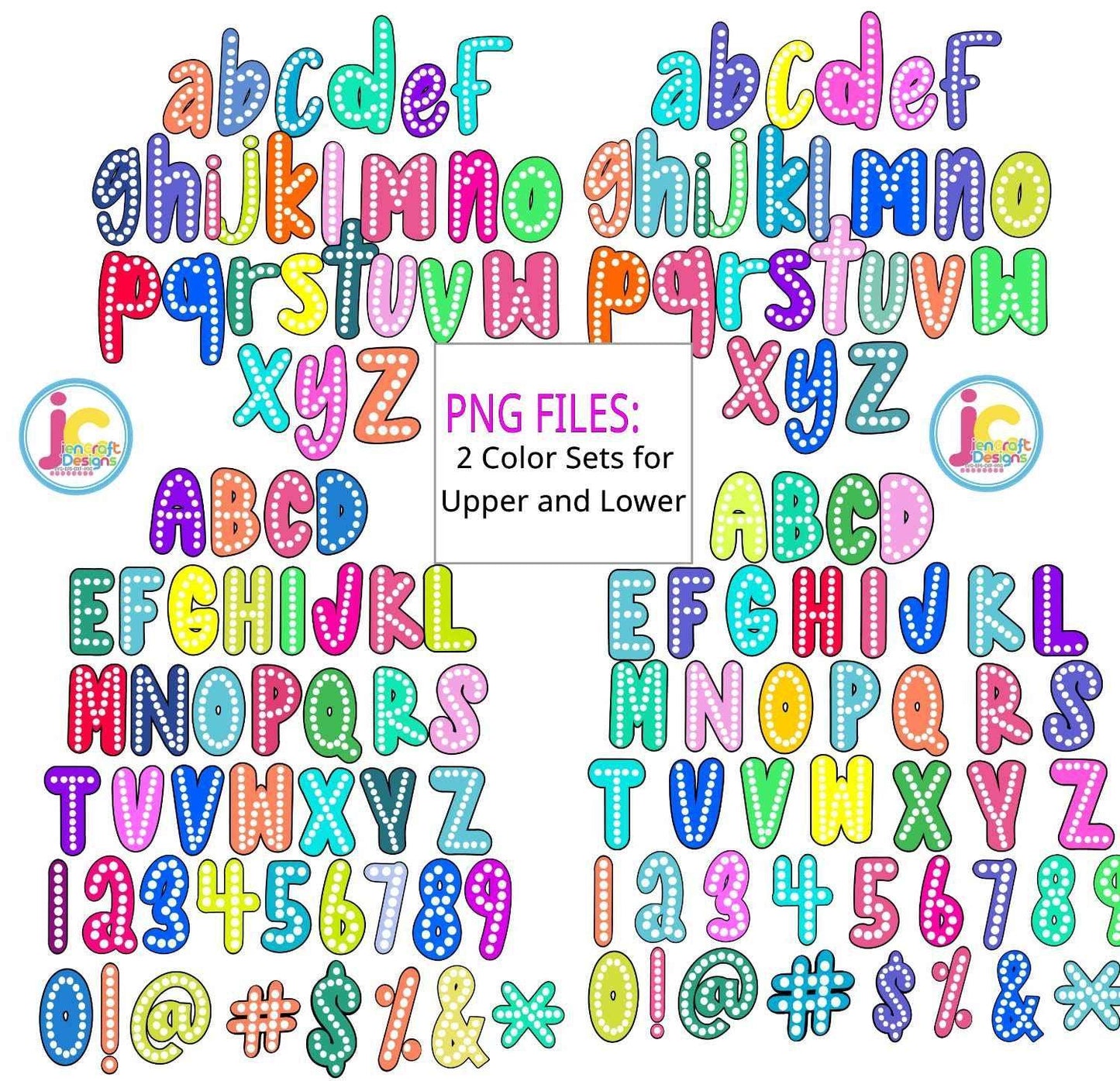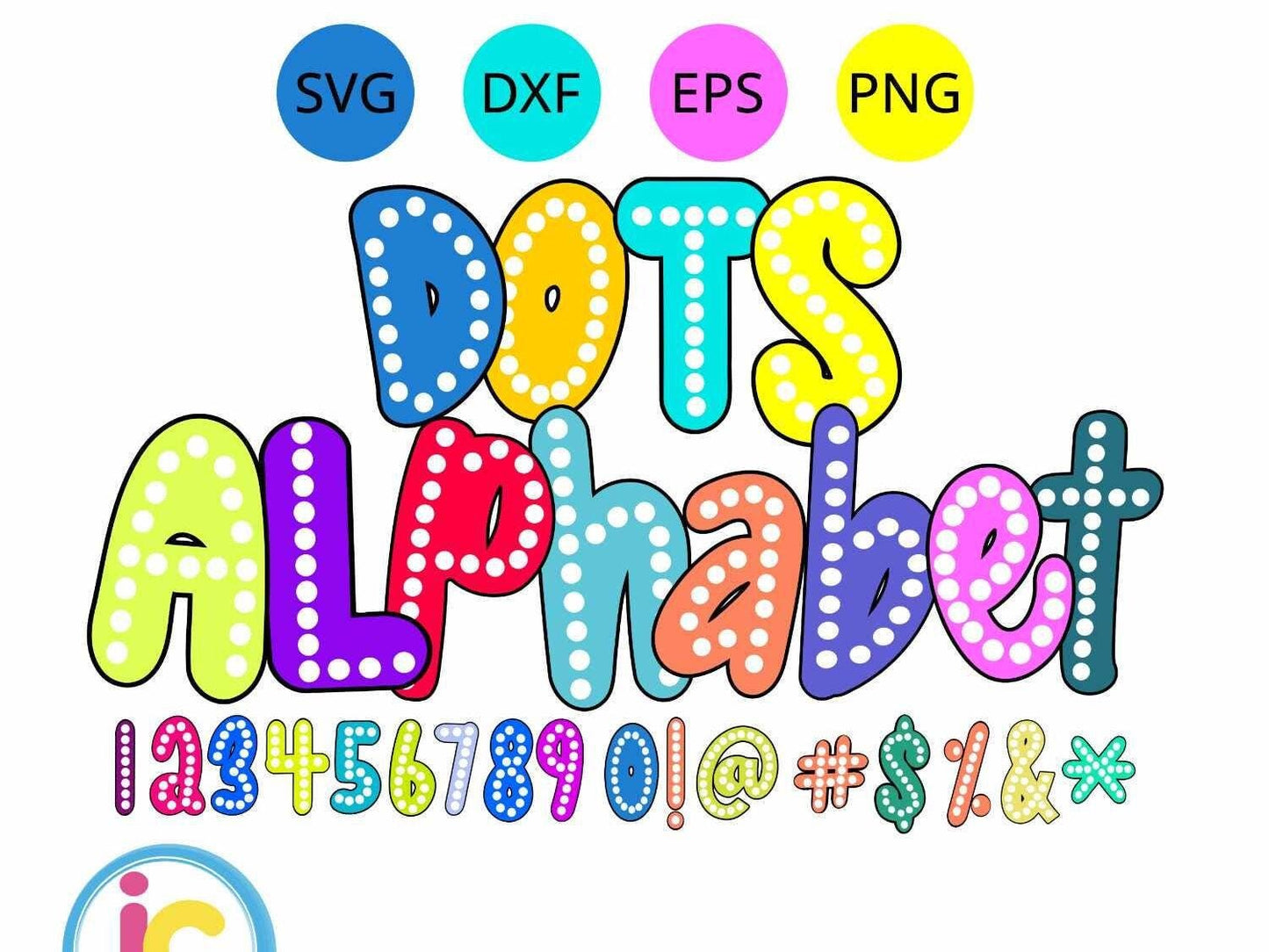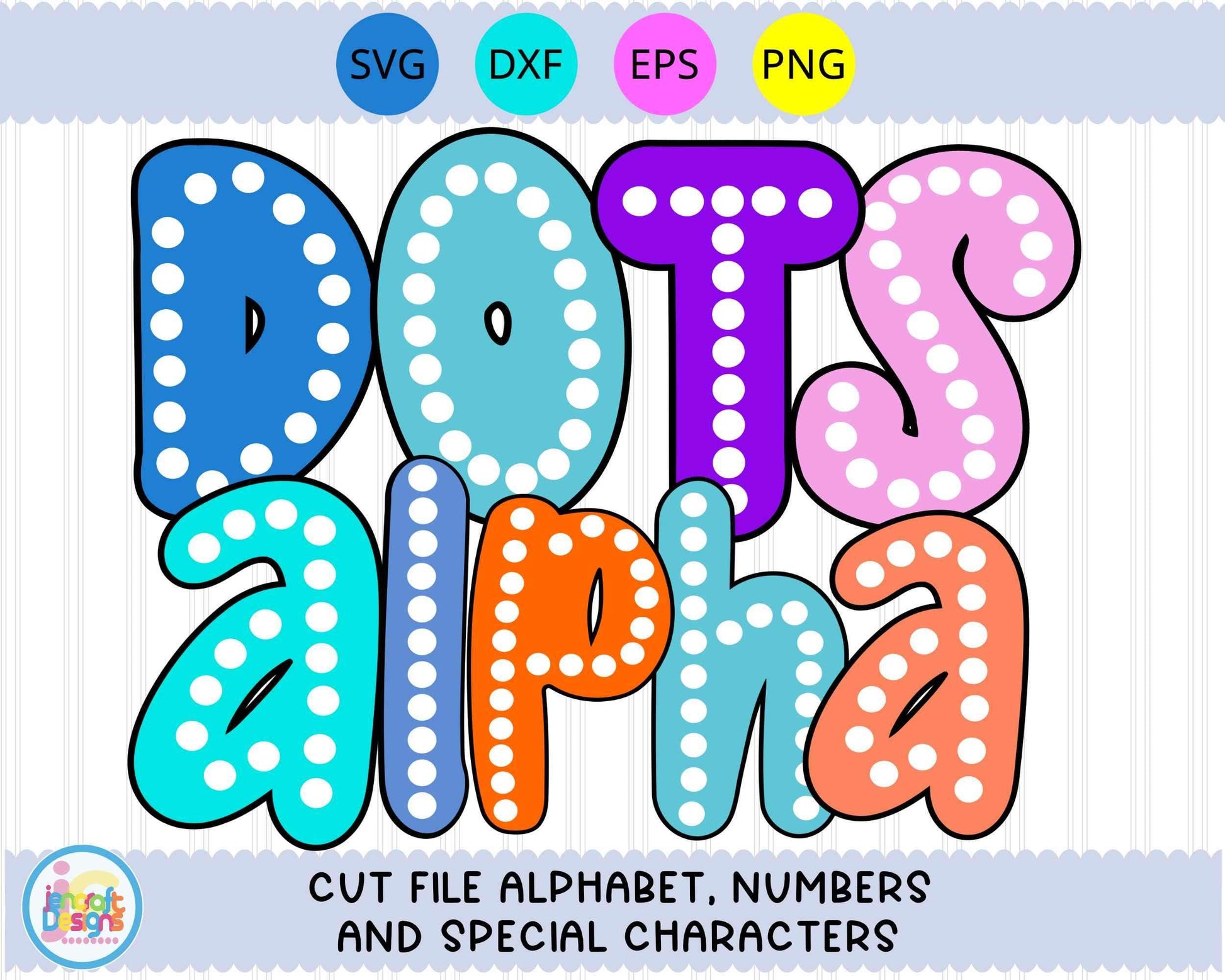
Retro Marquee Letters SVG | Bright Dot Alphabet Cut File SVG DXF PNG EPS
Light up your projects with this Retro Marquee Letters SVG — a full A-Z bright polka dot alphabet cut file set with bold retro marquee styling, perfect for fun shirts, tote bags, tumblers, party signs, and colorful home decor. Clean-cutting, layered files work beautifully with Cricut, Silhouette, and more. Available in SVG, EPS, DXF, and PNG formats.
- Full A–Z retro marquee dot alphabet